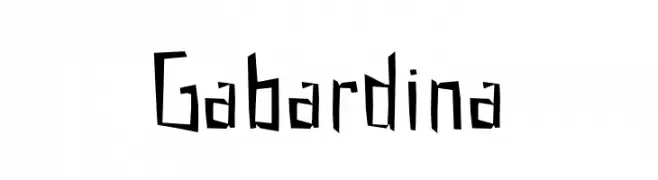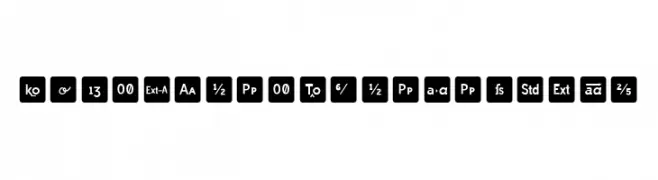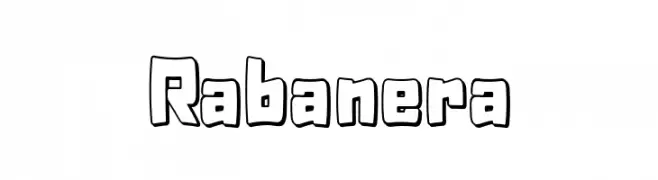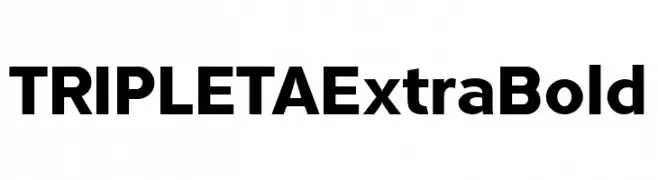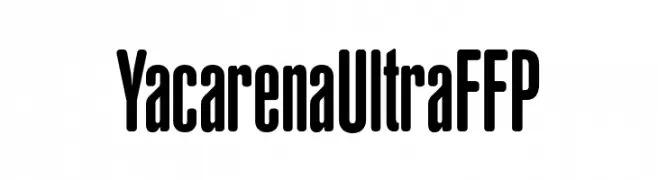
A bold, condensed, and modern font ideal for impactful headlines.
A bold, hand-drawn font with a playful and cartoonish style.
A modern, rounded sans-serif font with a clean and minimalistic design.
A bold, outlined font with a playful and impactful style.
A bold, boxed font with tall, narrow characters and a modern, impactful style.
A versatile set of icons and symbols for enhancing typographic projects.
A bold, angular font with sharp, jagged edges and a geometric style.
A bold, modern typeface with clean lines and uniform strokes.
An elegant serif font with high contrast and unique circular elements.
A bold, geometric font with sharp angles and a modern style.